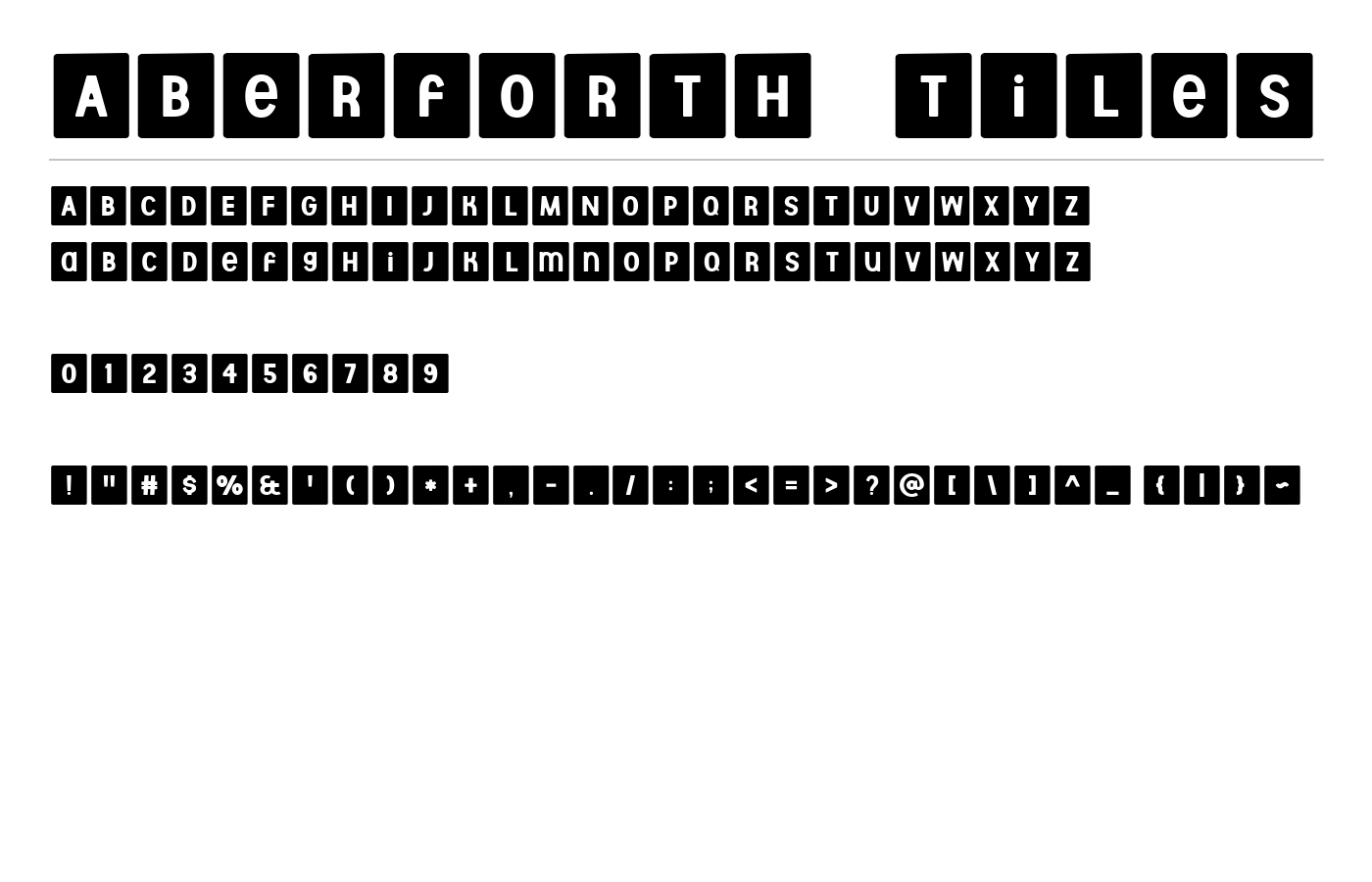
Aberforth Tiles is a bold, playful sans serif font characterized by its unique tile-like letterforms enclosed in solid black squares, giving it a chunky, geometric feel. The font features a mix of upper and lowercase styles with rounded edges and a casual, friendly personality, making it ideal for eye-catching logos, children’s materials, and fun editorial designs. Its highly legible, blocky shapes also work well in headline use where a quirky, informal vibe is desired.
Aberforth Tiles Font
About Aberforth Tiles Font